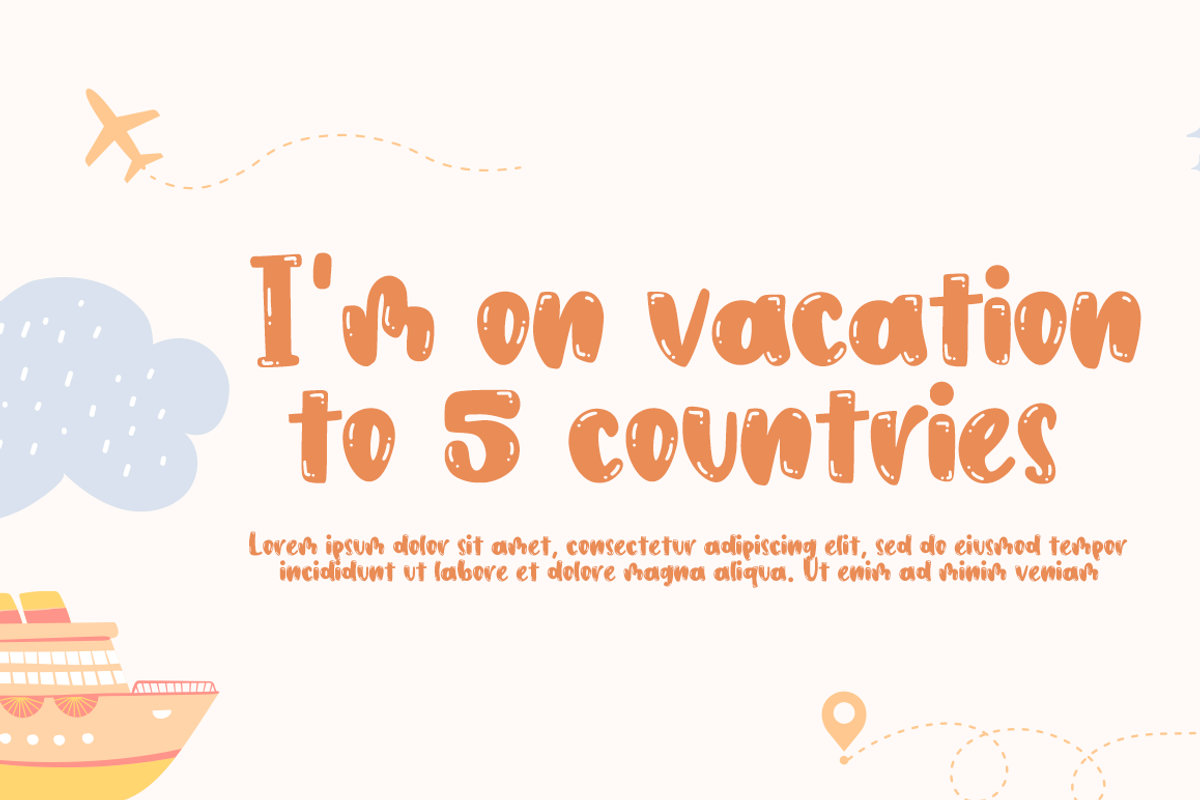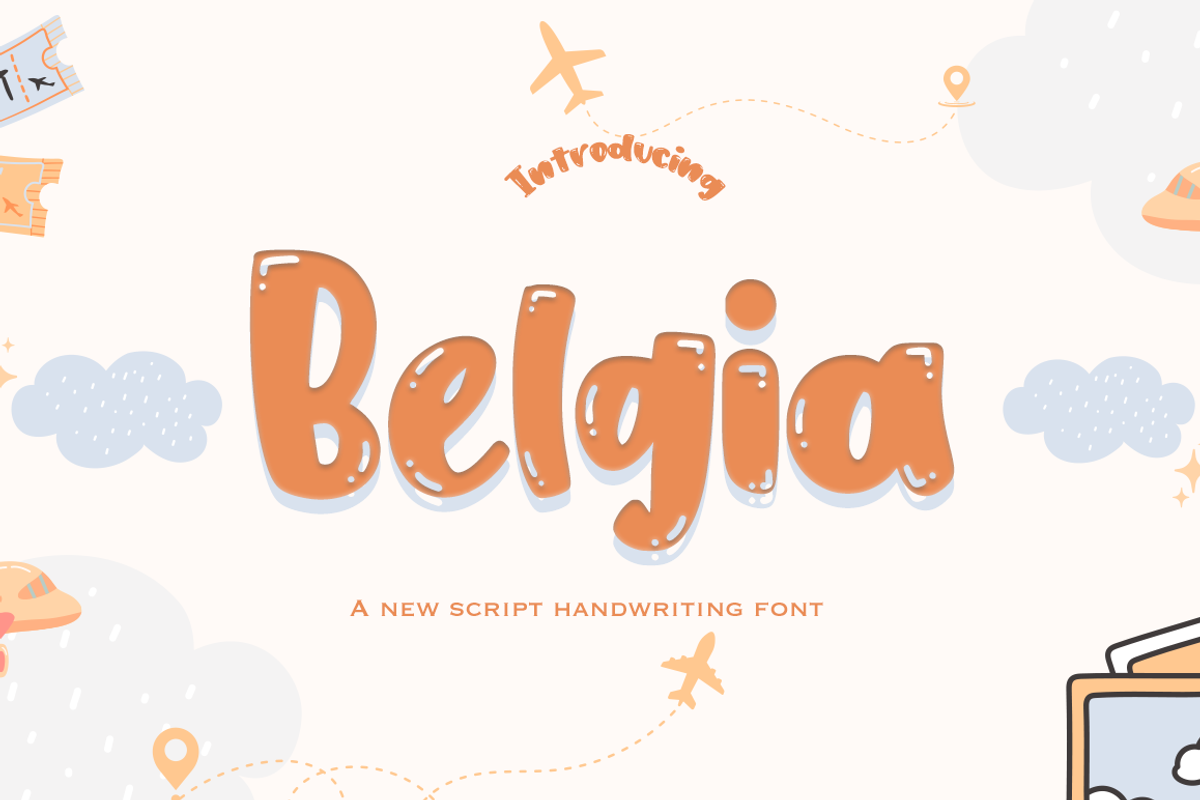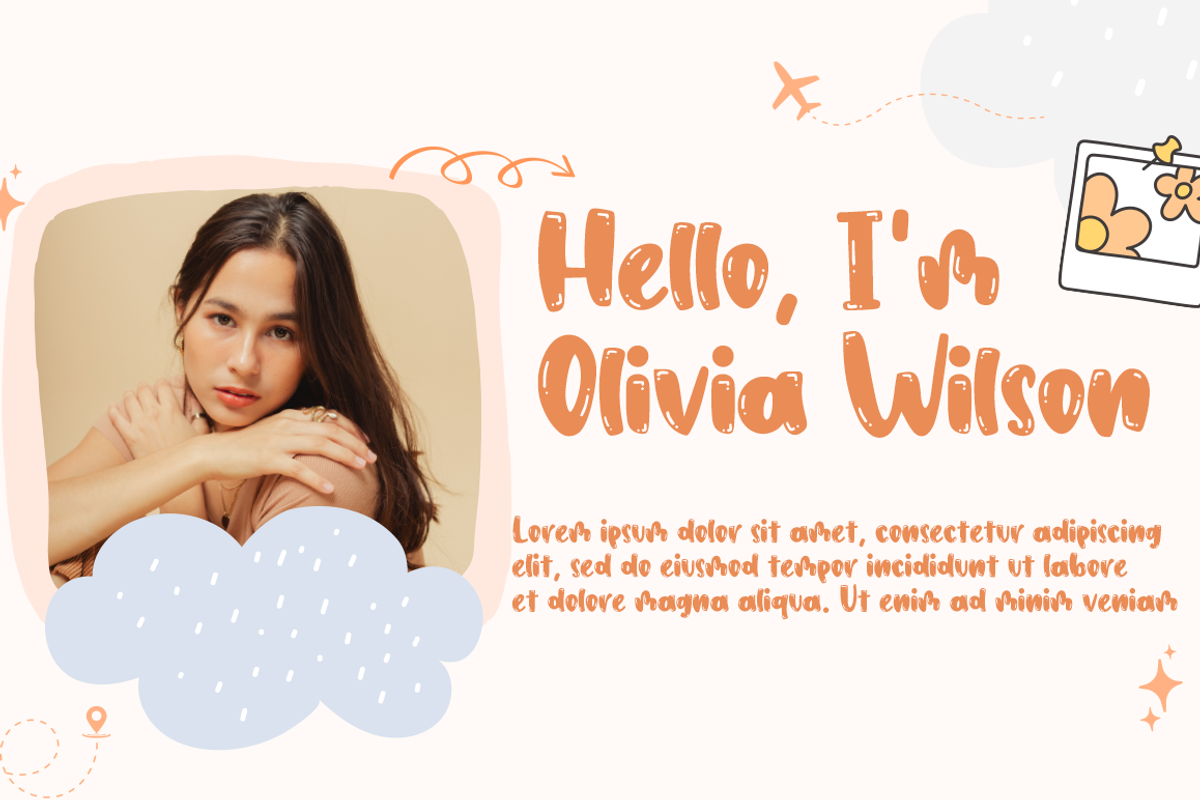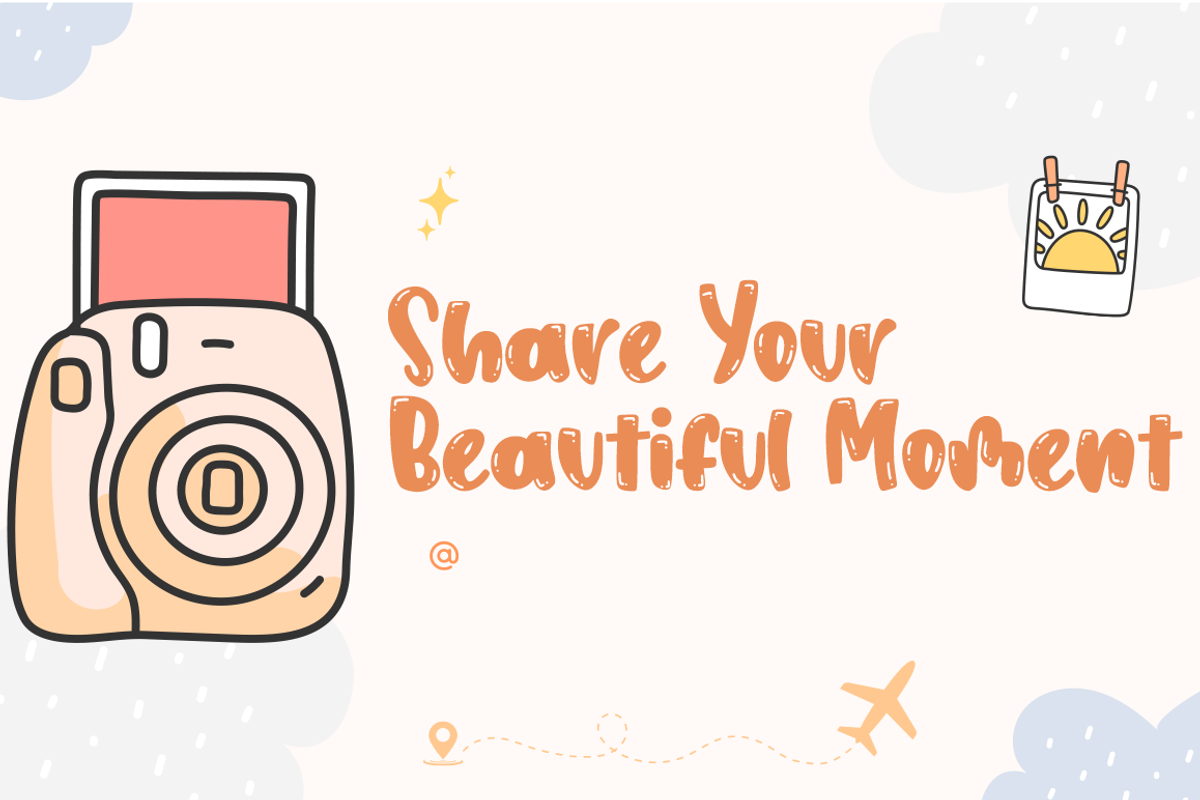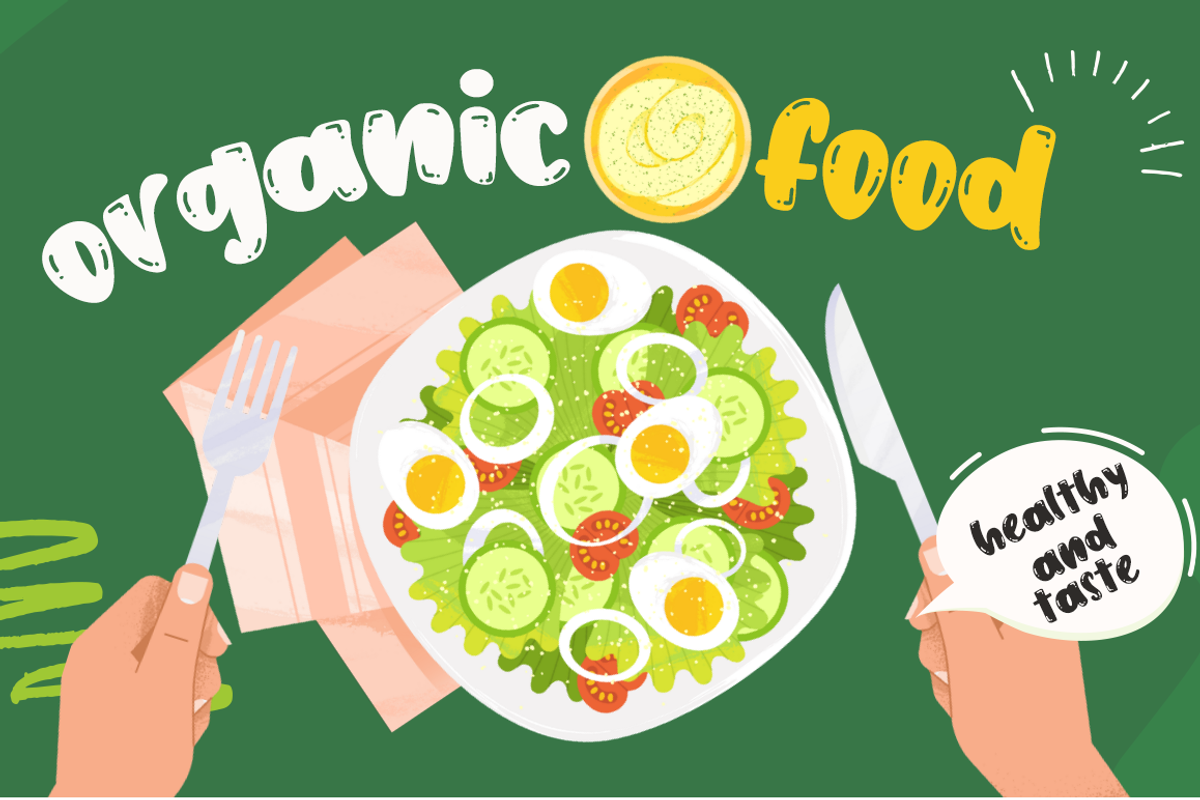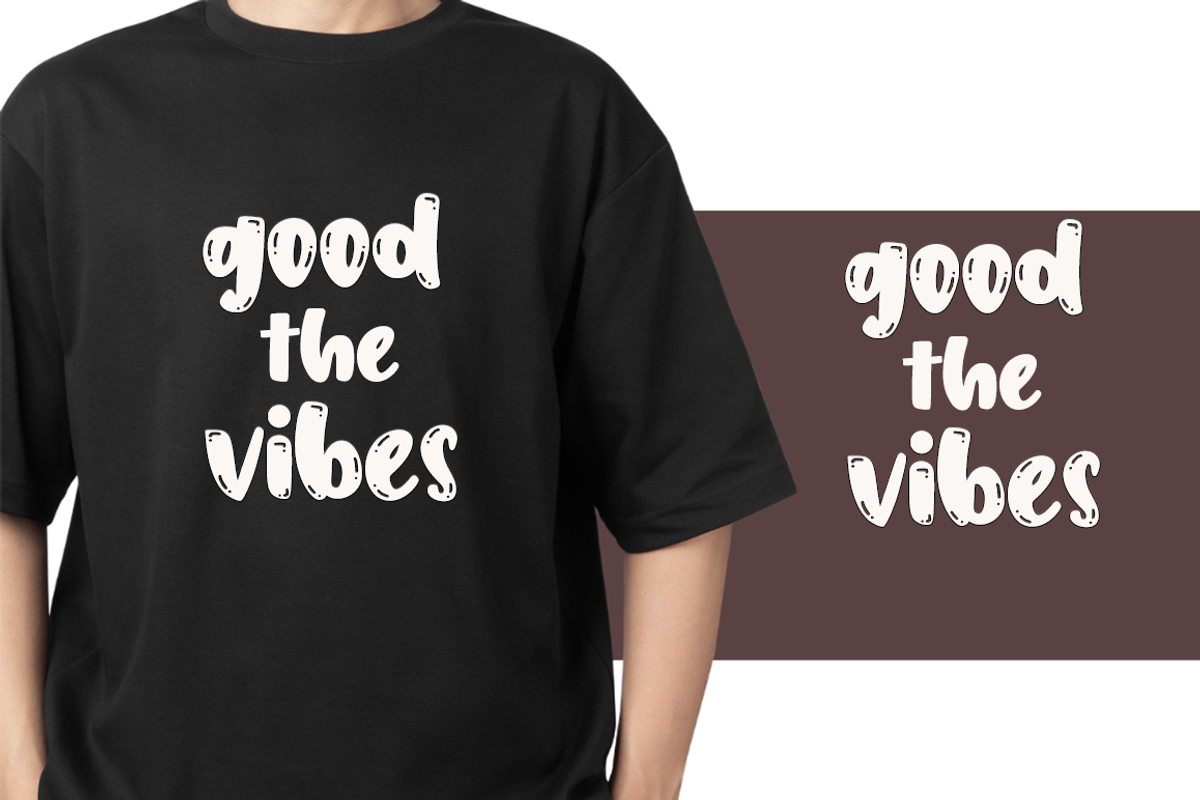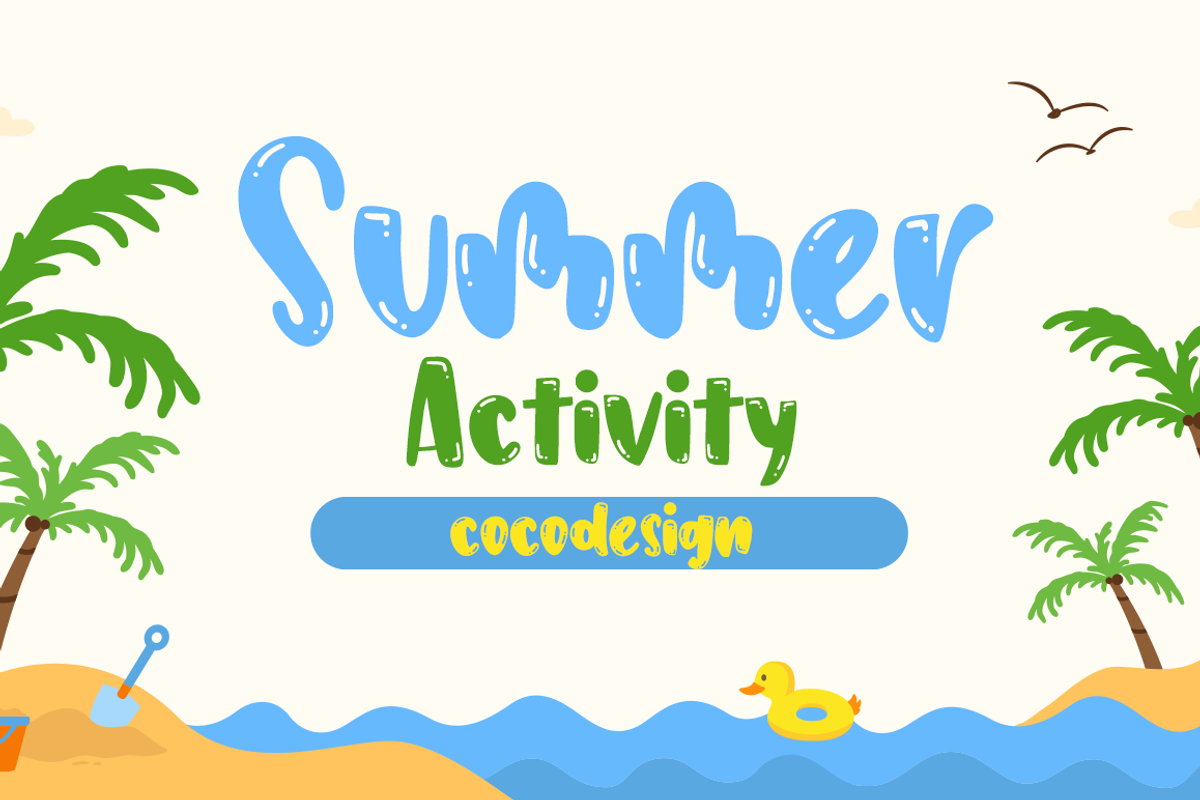
Belgia
Belgia handwritten font script. This font was designed by handwriting, and it has a modern and unique forms of calligraphy, the writing style is very natural. Belgia has a very unique style of calligraphy, it is very suitable for use in the work of modern design.